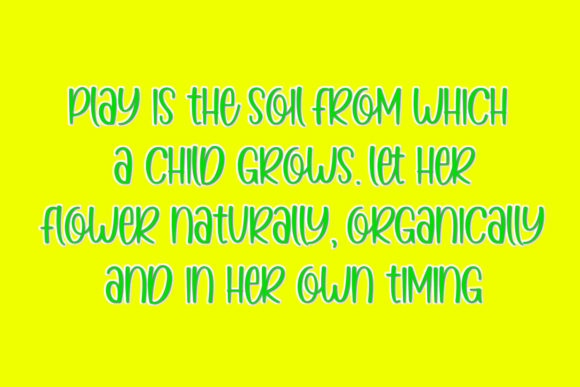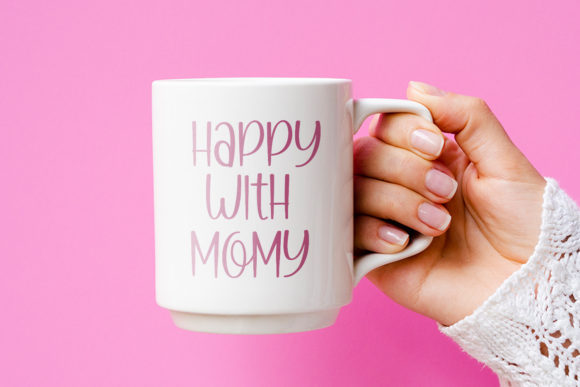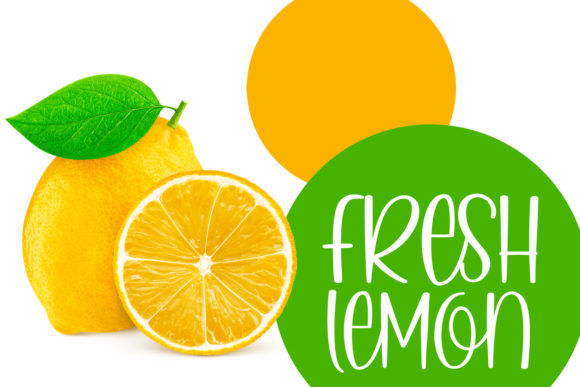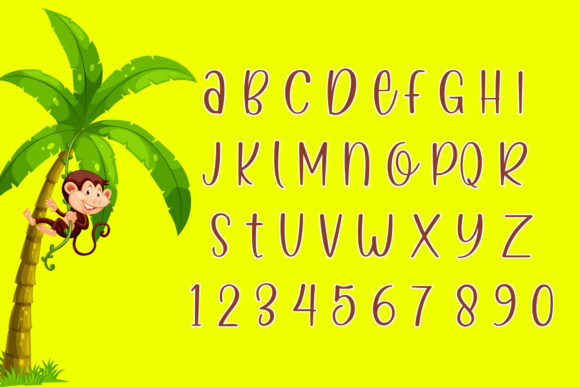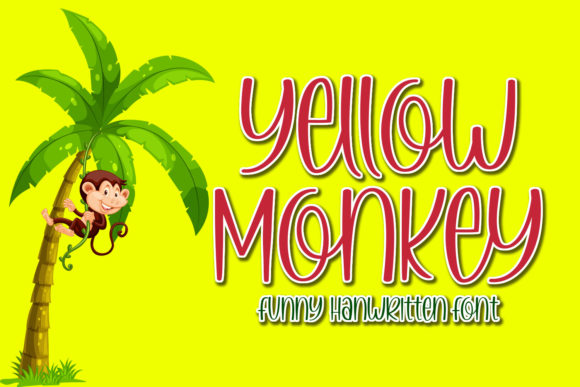
About Yellow Monkey Font
Yellow Monkey is a cute and playful handwritten font. It is defined by smooth curves and is perfect for fashion branding or editorial designs. Add it confidently to your projects, and you will love the results!